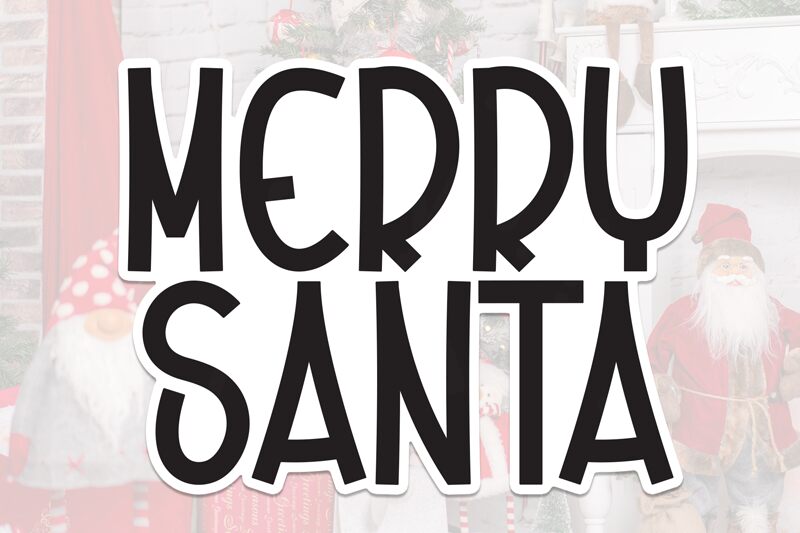
Merry Santa
Merry Santa font by Scratchones is a display typeface that combines geometric forms with Art Deco inspiration. The condensed font boasts decorative elements, strong vertical presence, and a modernized vintage feel for a contemporary retro style.
Various print and digital projects can benefit from it including logo design, branding, magazine covers, posters, stickers, packaging design, merchandise items, social media posts and banners. Its perceptions make it ideal for beauty products and similar sectors that search for elegance.